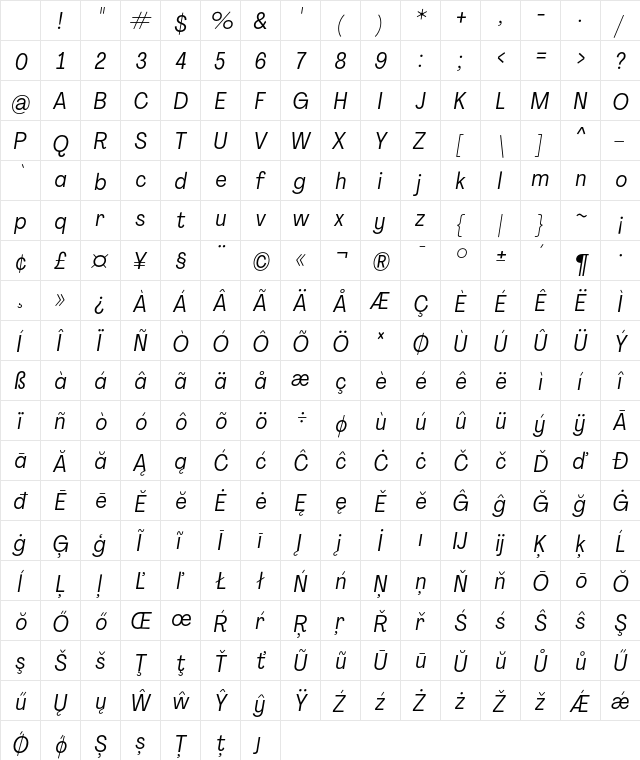
Agrandir Text is a composed and adaptable typeface that performs quietly and consistently across a wide range of design contexts. The slanted form adds forward momentum and visual energy.
Pro Tip: Use Agrandir Text for emphasis, pull quotes, and subheadings where its slanted energy can add rhythm to the layout.